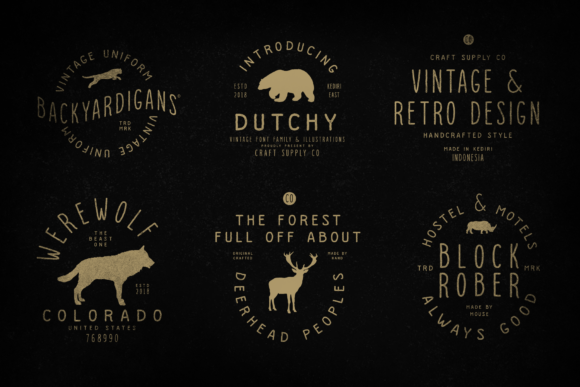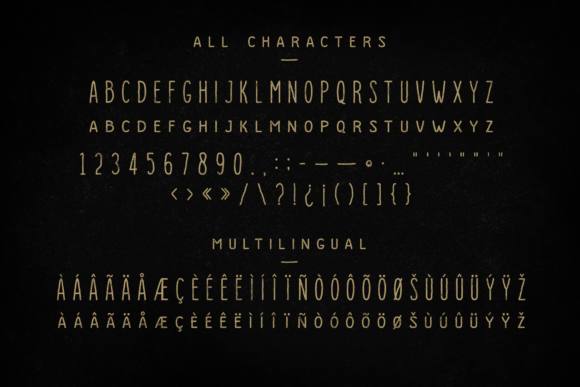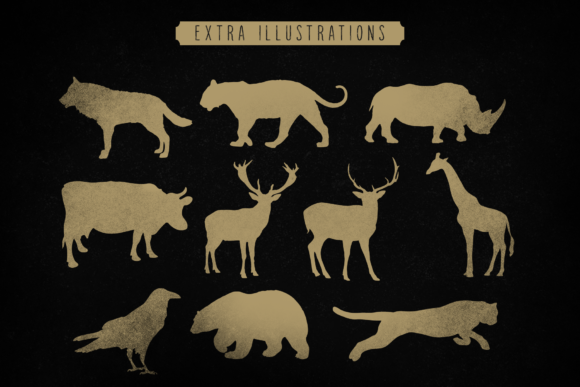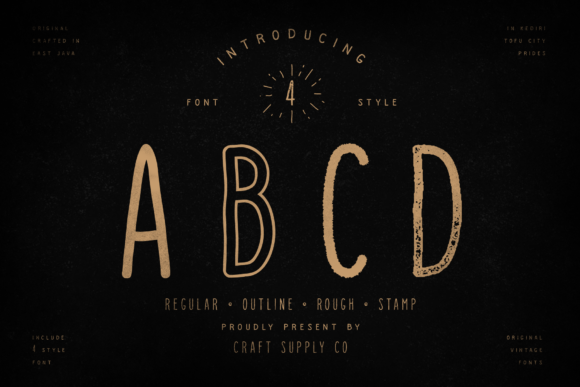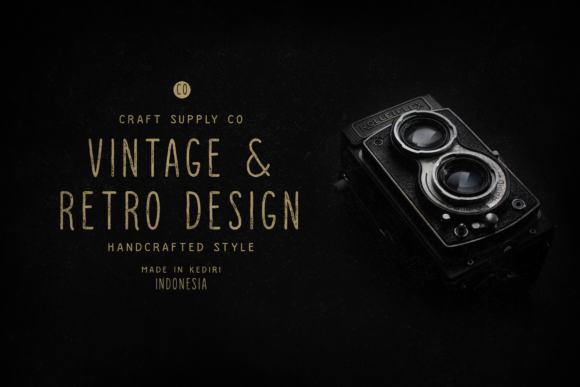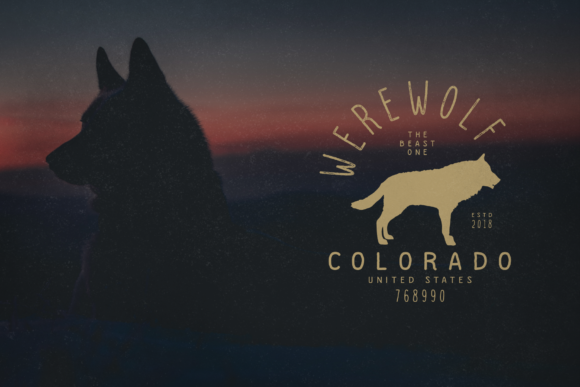
The Dutchy Font: A Vintage Gem for Your Design Projects
An Honest Review of Dutchy Font
The Dutchy font is a versatile and charming vintage family that comes in regular, stamped, and rough versions. Here are some things I love about it:
- ✨ Unique Character: Dutchy has a distinct personality that sets it apart from other vintage fonts.
- ✅ Multi-Format Support: It comes in three different versions, making it suitable for a wide range of design projects.
- 💻 Easy to Read: Despite its vintage feel, Dutchy is surprisingly legible, even at smaller font sizes.
Of course, no font is perfect, and Dutchy has a few quirks:
- 🤔 Limited Ligatures: Dutchy doesn’t have a wide range of ligatures, which might be a drawback for some designers.
- ⚠️ Not Suitable for Body Text: While it’s legible, Dutchy is best used for headlines or titles, as it may not be comfortable to read in large blocks of text.
The Story Behind Dutchy Font
The Dutchy font was designed with the intention of capturing the essence of vintage design, while still being legible and versatile. The designer aimed to create a font that would be perfect for crafters, designers, and hobbyists looking for a unique touch in their projects. Although the exact story behind Dutchy might be shrouded in mystery, its charm and character have won over the hearts of many designers.
| Is Dutchy font suitable for body text? | While Dutchy is legible, it’s best used for headlines or titles. For body text, you might want to choose a more traditional font. |